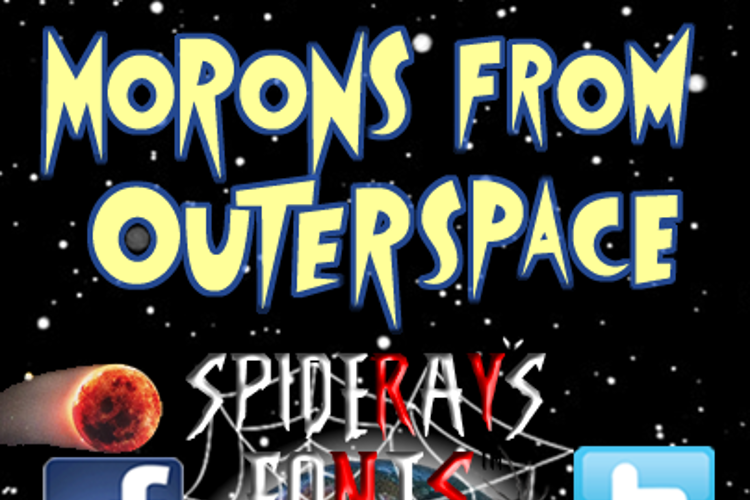
MoRoNs from OuTeRsPacE Font
About MoRoNs from OuTeRsPacE Font
I created this MoRoNs from OuTeRsPacE (aka: LoS LoCos DeL PlaNeTa Blob) typeface based on the 1985 British comedy-science fiction film about a group of four aliens called Bernard, Sandra, Desmond, and Julian. They accidentally disconnect his part of the ship, leaving Bernard outside playing spaceball stranded while they crash to Earth. I have always liked the crazy angles and and out of size glyphs.